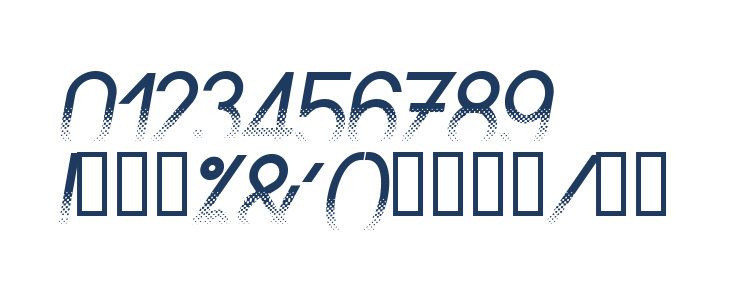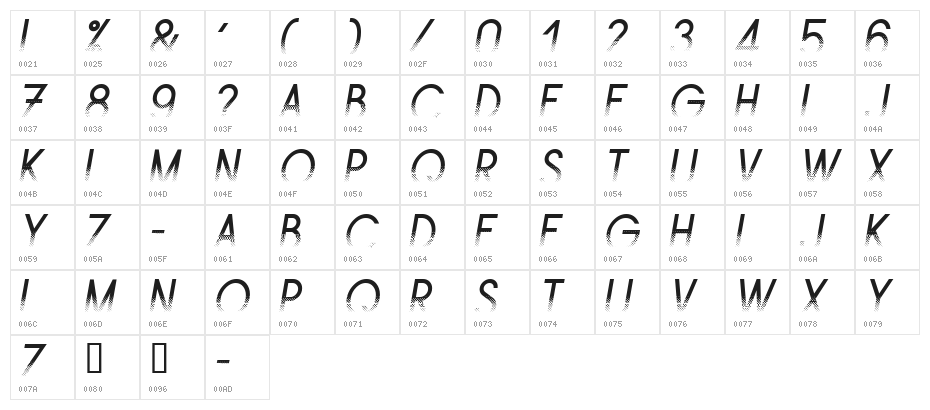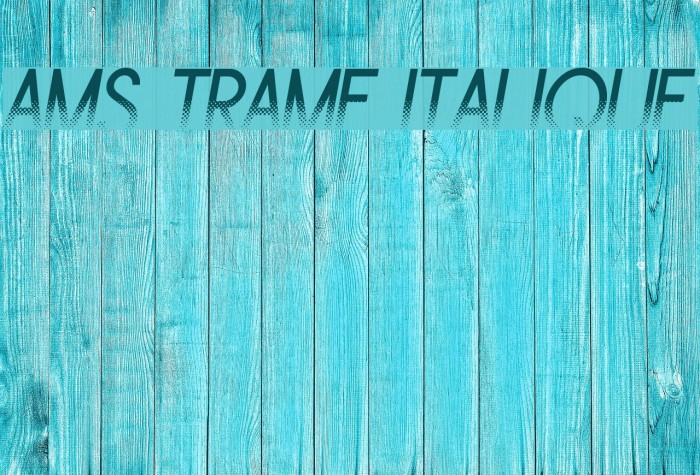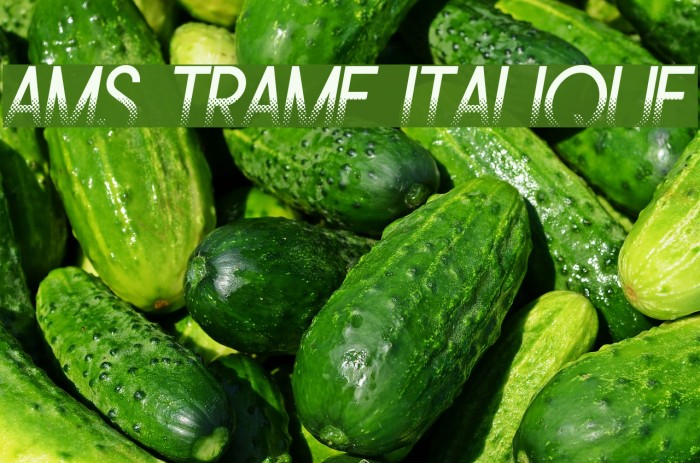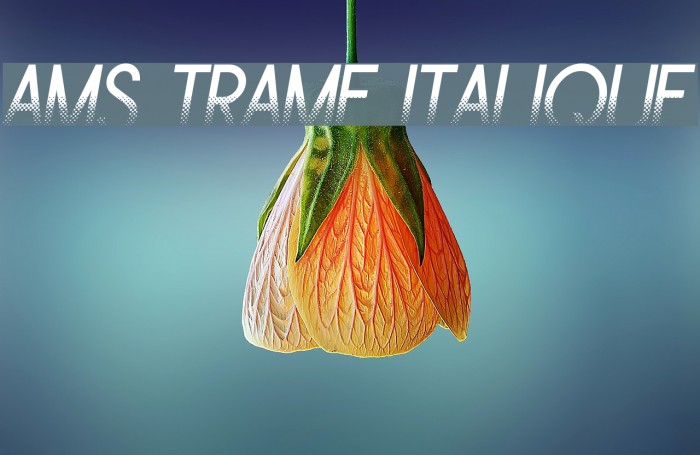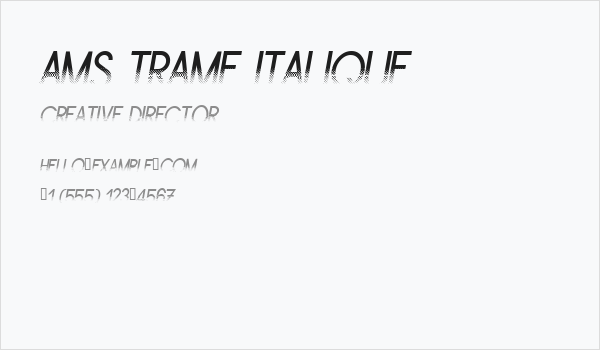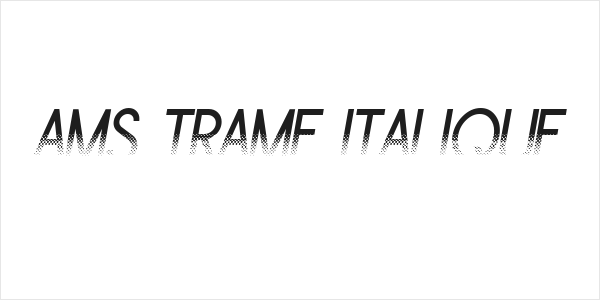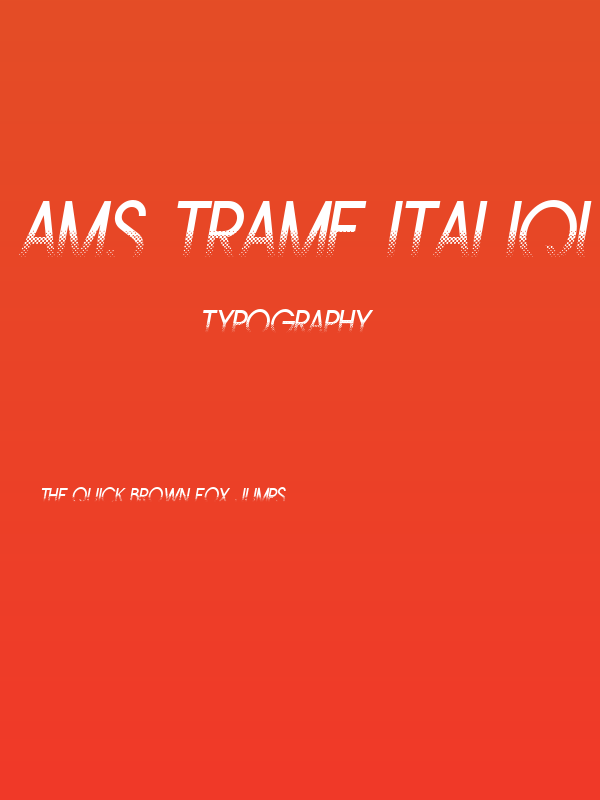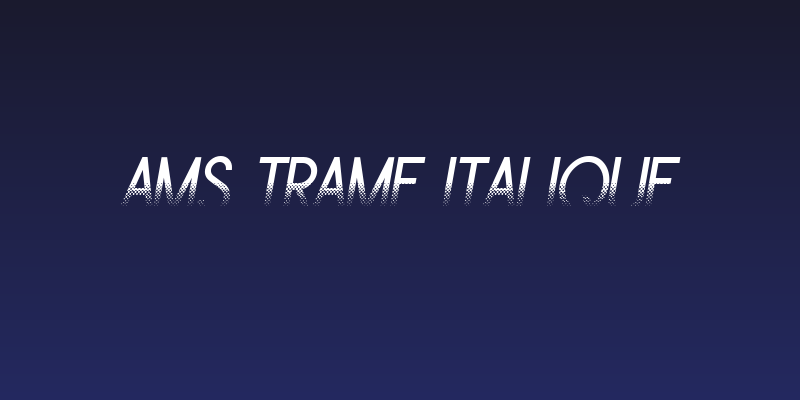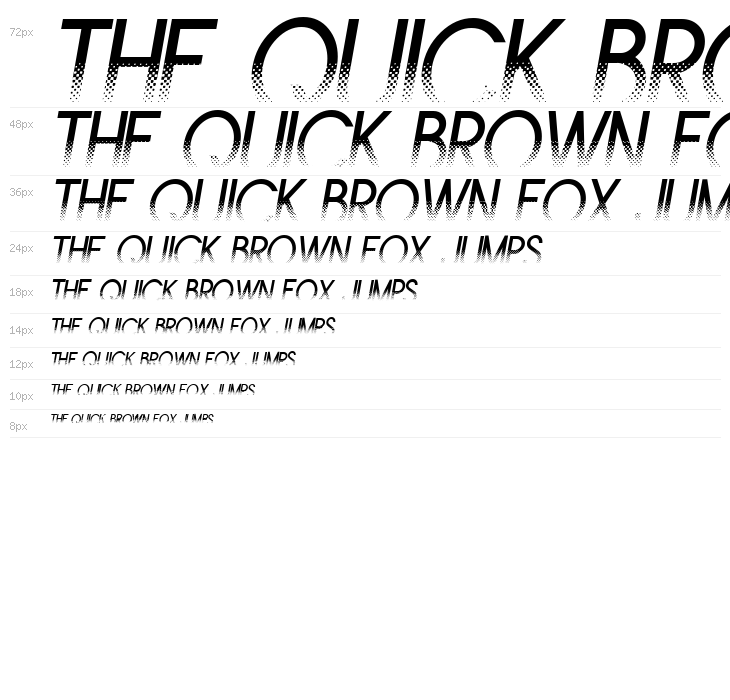
Ams Trame Italique Font
Ams Trame Italique Description
This font features a unique and modern design with a distinct italic slant. The characters are bold and have a gradient effect that transitions from solid black at the top to a dotted pattern at the bottom, creating a dynamic and eye-catching appearance. The uppercase and lowercase letters maintain a consistent style, with clean lines and sharp angles. The numerals and special characters follow the same design principles, ensuring uniformity across all glyphs. This font's innovative style makes it suitable for projects that require a contemporary and artistic touch.
| Proposed Projects | Ideal for branding, posters, digital art, and any project needing a modern and artistic flair. |